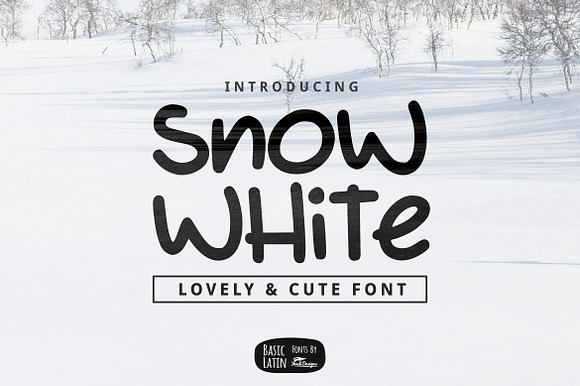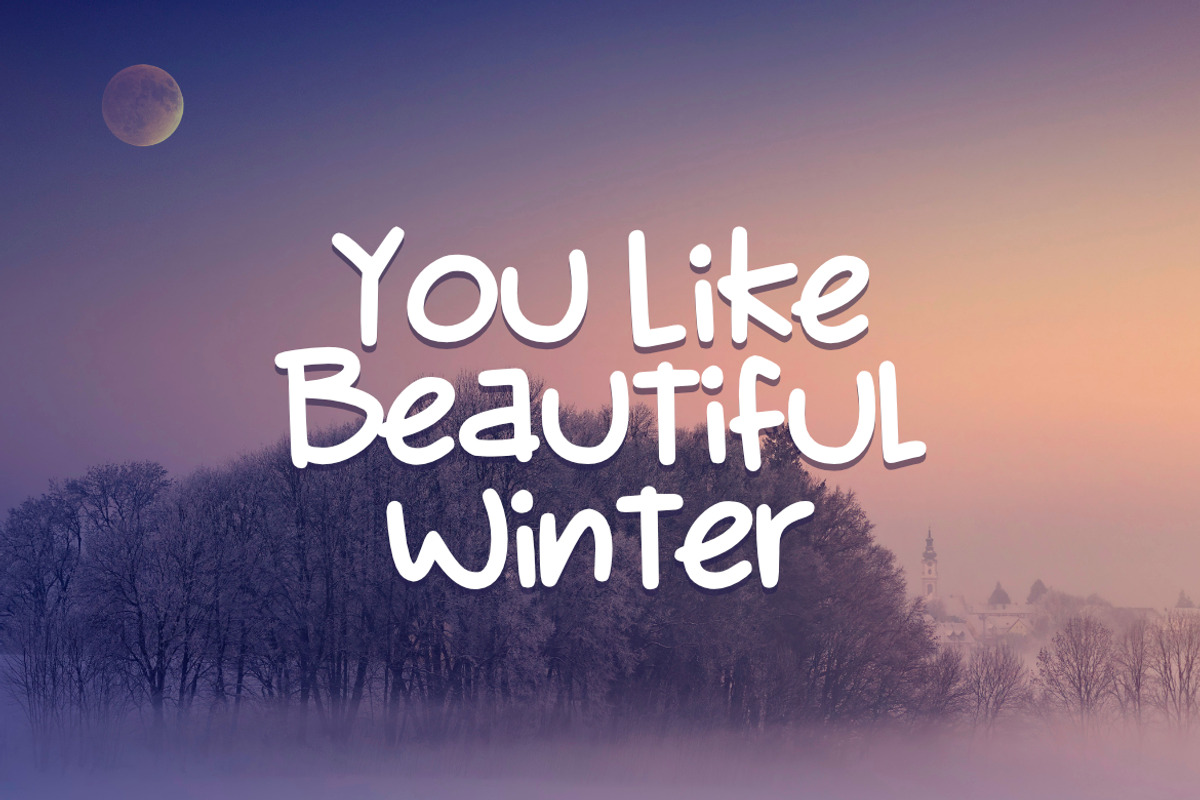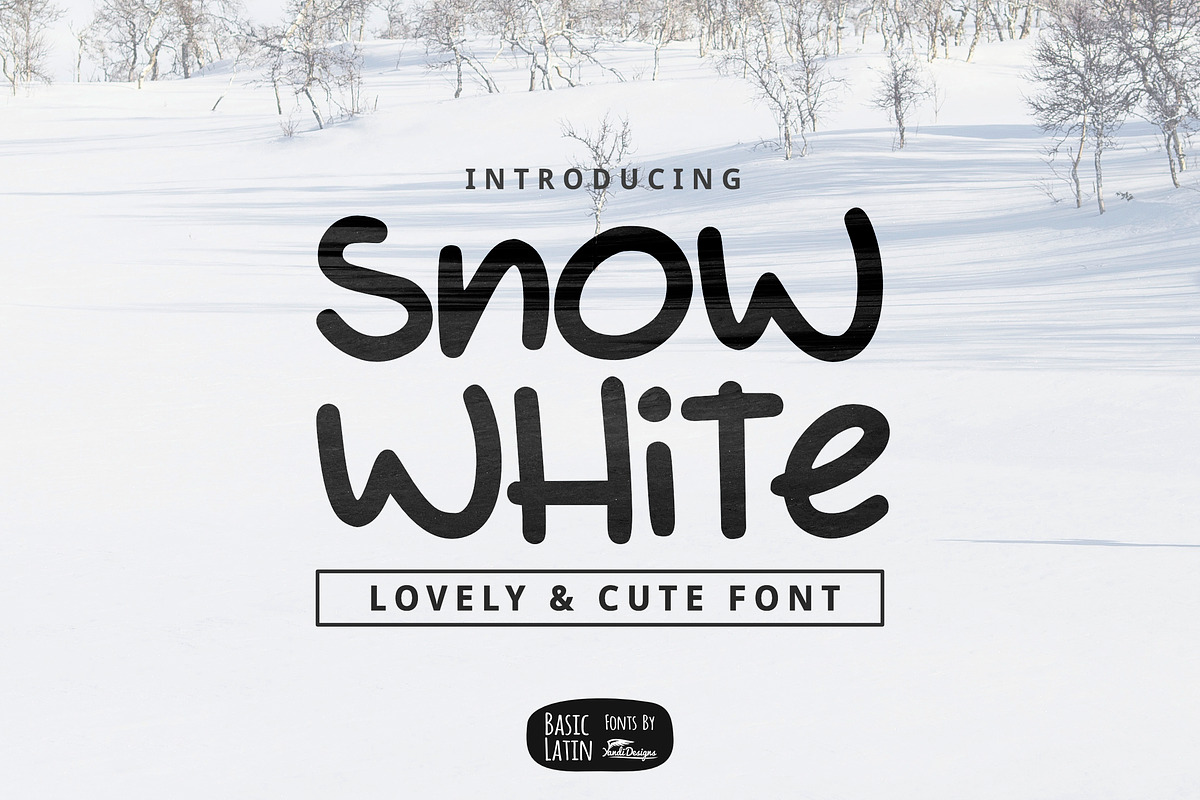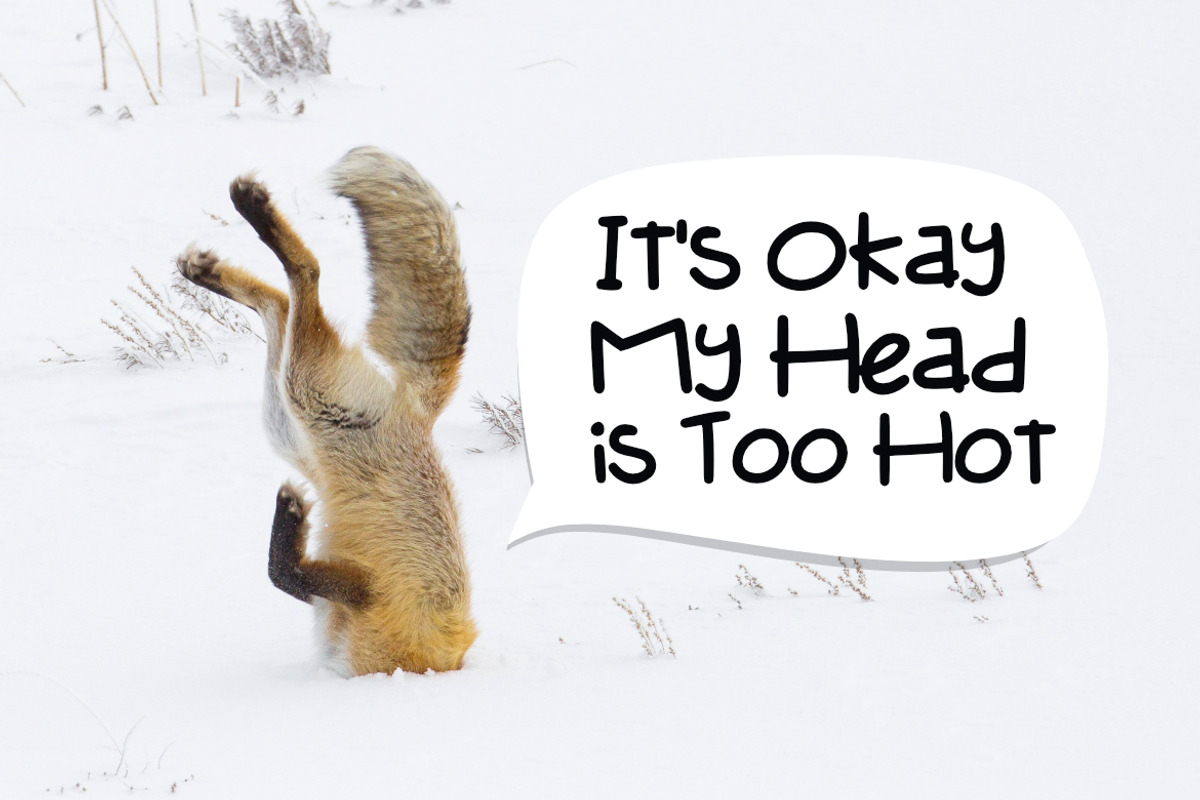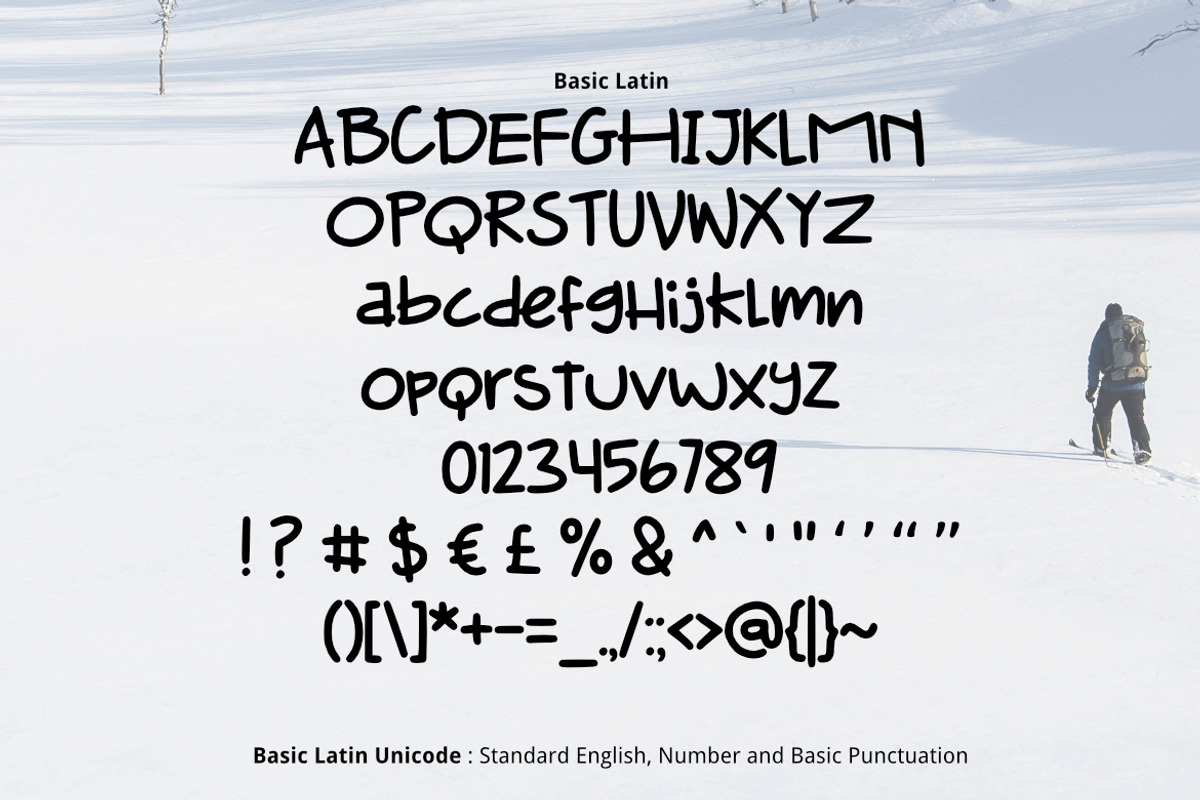
Snow White Font
Snow White Font is simple cute multipurpose handmade font, suitable for many project children book, quotes, logo , heading , title etc.
Snow White Font by YandiDesigns fits naturally into Branding, posters, packaging, typography.